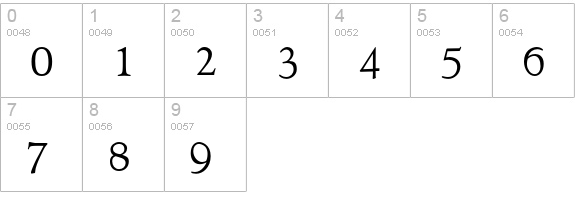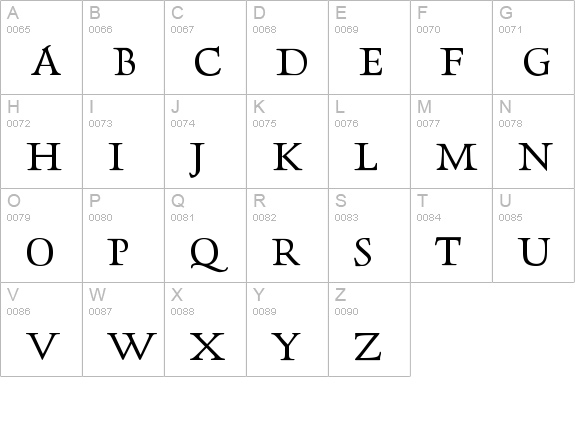
AT Hadriano Std Light Font Details
AT Hadriano Std Light is a refined, elegant variant in the AT typeface family \xE2\x80\x94 well suited to elegant body text, refined sub-headings, and luxury branding.
AT Hadriano Std Light is a modern and elegant font that exudes sophistication and style. Its light weight conveys a sense of grace and delicacy, making it perfect for a variety of design projects. Whether used for branding, editorial design, or web design, this typeface adds a touch of refinement to any project. What's even better is that AT Hadriano Std Light is available for free download at FontsMarket.com. This means you can easily access this beautiful font and incorporate it into your creative work without any cost. Don't miss out on the opportunity to enhance your designs with this stunning typeface that is both versatile and visually appealing. Download AT Hadriano Std Light today and elevate your design projects to the next level.